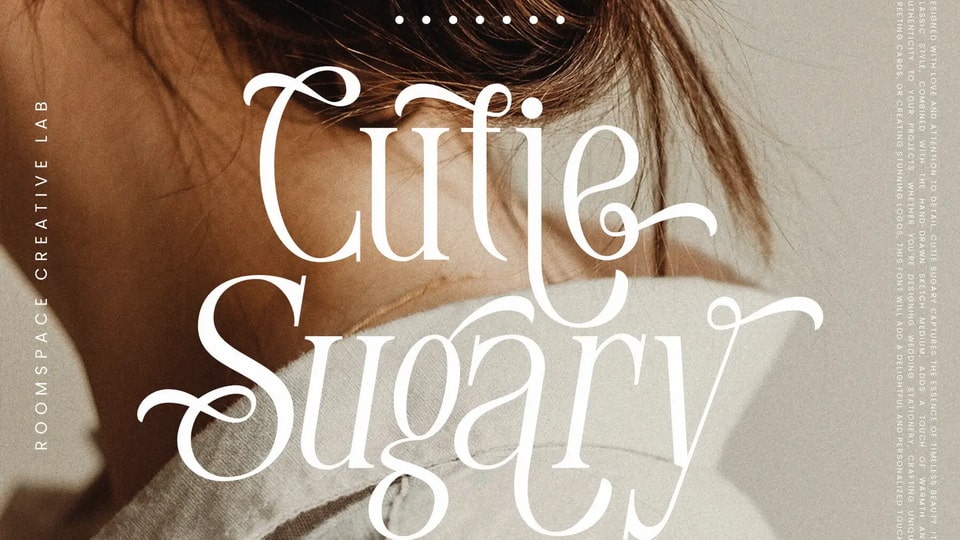
Download Cutie Sugary font, a delightful typeface that exudes charm and sophistication. With its graceful serifs and refined letterforms, it adds an air of elegance to any design.